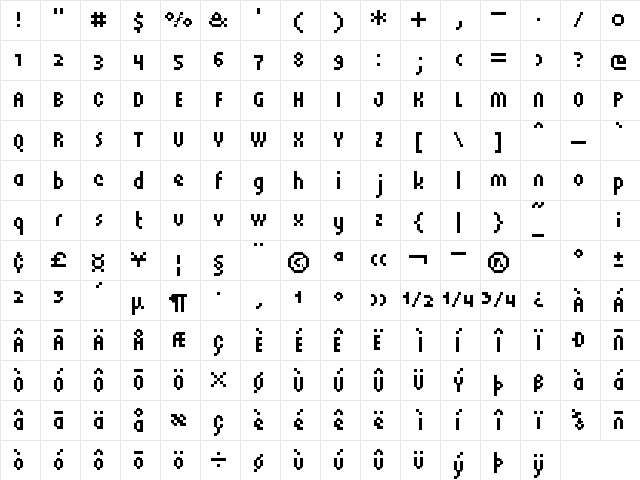
UF Jetson OSF Regular
Foundry: Ultrafonts
Designer: Miguel Hern￿ez
Design Context for UF Jetson OSF
UF Jetson OSF is a composed and adaptable typeface that performs quietly and consistently across a wide range of design contexts.